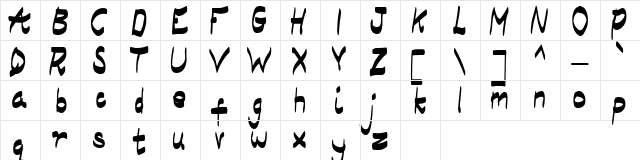
Aksioma Regular
| Designer | Rajman |
Design Context for Aksioma Typeface
Aksioma is a composed and adaptable typeface that performs quietly and consistently across a wide range of design contexts.